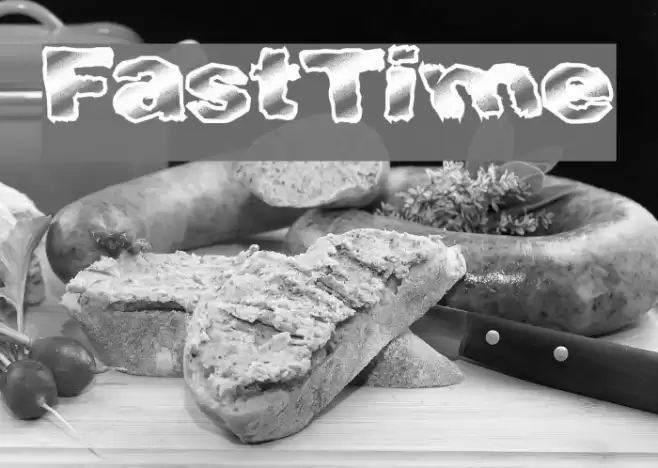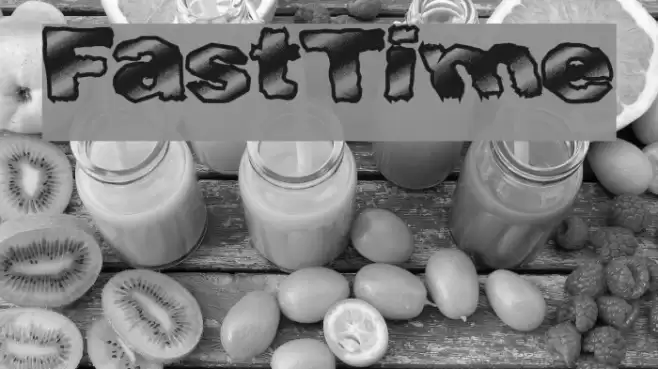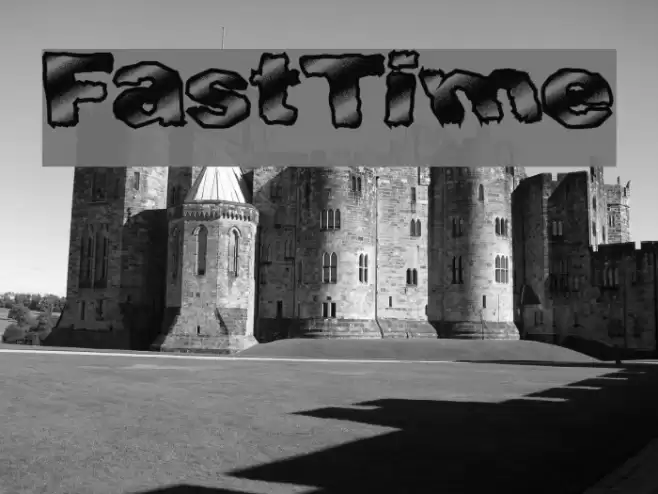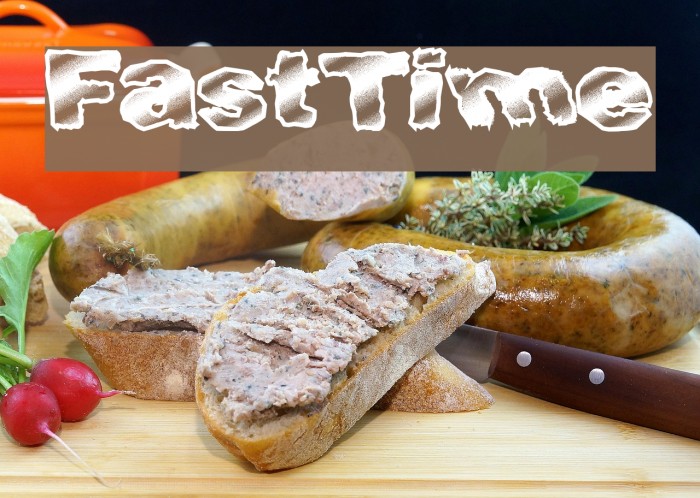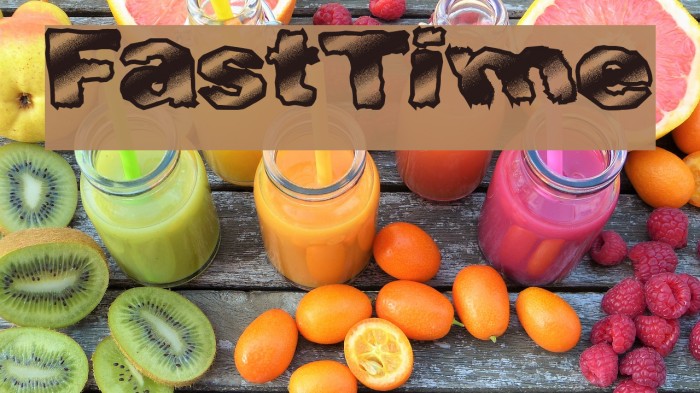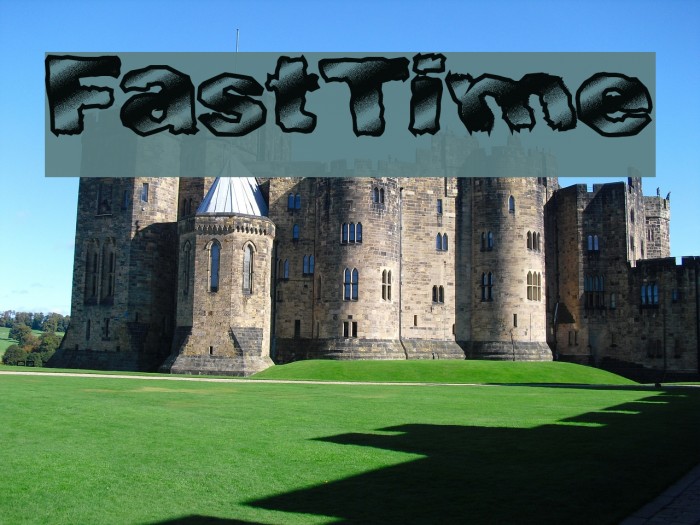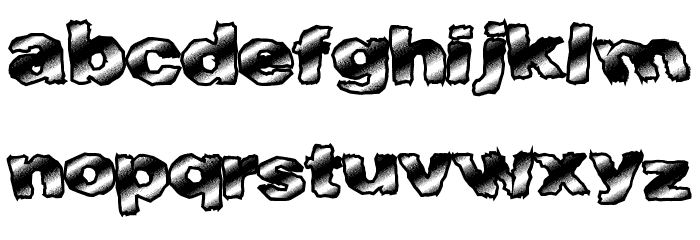
FastTime Font
FastTime Description
This font features a bold and dynamic style with a distressed, textured appearance that gives it a rugged and edgy look. The characters are thick and have an uneven, almost torn effect, which adds to its unique and eye-catching design. The uppercase and lowercase letters maintain a consistent style, with each character appearing as if it has been roughly carved or eroded. This font's boldness and distinctive texture make it stand out, making it suitable for projects that require a strong visual impact.
A bold, textured font with a rugged, distressed appearance from Uncategorized fonts.